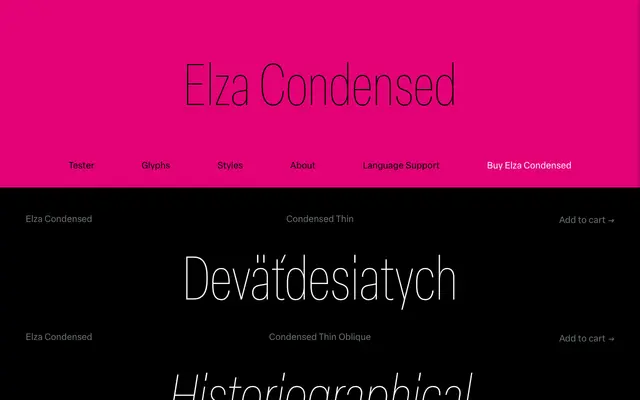
Elza Condensed
Blackletra · Daniel Sabino · 2021
A condensed neo-grotesque by Daniel Sabino that takes Helvetica and Univers as its direct references and pushes their mechanised logic further with subtly straight-sided round letterforms.
Sixteen styles span eight weights from Thin to Black, each with an oblique companion, across a single condensed width. Round letters carry small straight segments on their sides to maximise consistency between weights and to produce a squarish, almost mechanical regularity that the designer describes as more neutral than Helvetica itself. The family supports approximately 900 glyphs per font, includes small caps, old-style figures and a variable version with weight, width and slant axes.
Explicitly modelled on Helvetica and Univers, the two canonical neo-grotesques, with mechanised square curves and an absence of humanist detailing. Obliques rather than true italics reinforce the systematic, rational character.